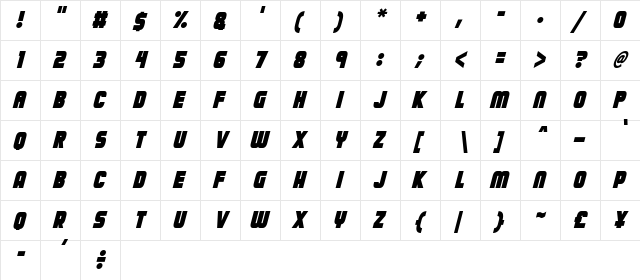
Calamitech Italic
Design Context for Calamitech Typeface
Calamitech channels digital-age aesthetics through its sharp, structured letterforms — ideal for brands that want to signal innovation. Its italic angle brings a sense of urgency and motion to the letterforms.
Pro Tip: Use Calamitech in combination with a neutral sans for body text. Let it define the brand voice in headlines while keeping reading comfortable elsewhere.